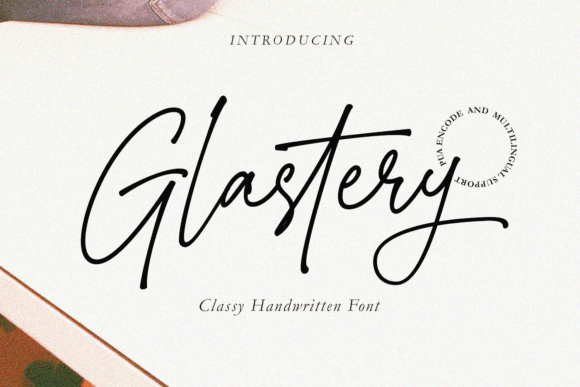
Introducing Glastery Font, the ultimate choice for photography logos that demand excellence. Created by Nun Creatype, this dazzling script font is a true masterpiece. With its neat craftsmanship and intricate detailing, Glastery will effortlessly elevate your designs to new heights.
Are you looking for a font that can effortlessly capture attention and leave a lasting impression? Look no further than Glastery. With its stunning script style, this font will immediately draw the eyes of your audience, making your photography logo stand out from the crowd.
But Glastery is not just a pretty face. It is a versatile tool that can enhance any creation, regardless of the topic or theme. Whether you're designing a website, creating social media posts, or working on branding materials, this font will be your secret weapon for capturing the essence of your photography business.
What sets Glastery apart is its PUA encoding, which allows you to easily access all glyphs and ligatures. This means you have endless possibilities at your fingertips, enabling you to create unique and personalized logos that reflect your style and vision.
Imagine the impact a beautifully crafted logo can have on your clients and potential customers. Glastery Font empowers you to convey professionalism, creativity, and a true passion for photography. It evokes emotions, ignites curiosity, and leaves a lasting impression on anyone who sees it.
Don't settle for mediocre fonts that fail to capture the essence of your photography business. Glastery Font is your ticket to success, offering a seamless blend of elegance, style, and functionality. It's time to take your photography logo to the next level and make a statement that resonates with your target audience.